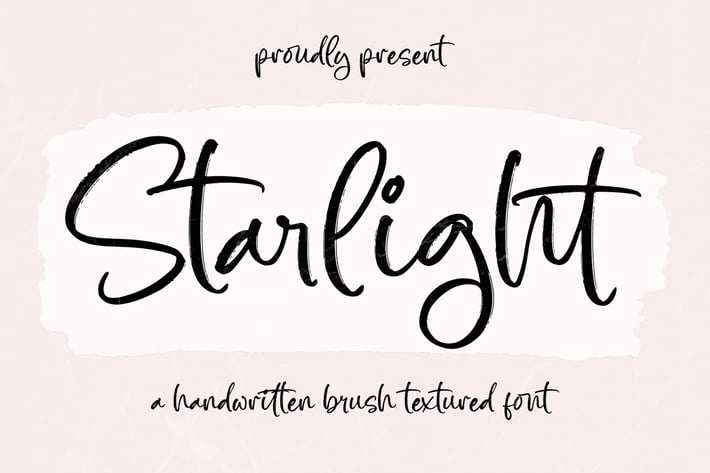
Starlight Brush Textured Font
Starlight is a hand-painted brush script with rich, textured strokes and a lively handmade feel. Its bold curves, dry-brush details, and friendly rhythm give headlines instant personality—perfect for designs that need energy without losing warmth. Use Starlight to craft punchy posters, social quotes, branding, and anything that should look confidently casual and beautifully imperfect.
+ Natural dry-brush texture for authentic, hand-drawn look
+ Smooth spacing and refined kerning for clean results
+ Useful alternates/ligatures (where supported) for organic flow
+ Bold posters & event flyers
+ Social media quotes & covers
+ Brand marks & casual logos
+ Packaging, labels & stickers
+ Café menus & signage
+ Apparel graphics & merch
+ YouTube thumbnails & banners
+ Greeting cards & invitations
Let your words sparkle with bold, hand-painted texture.